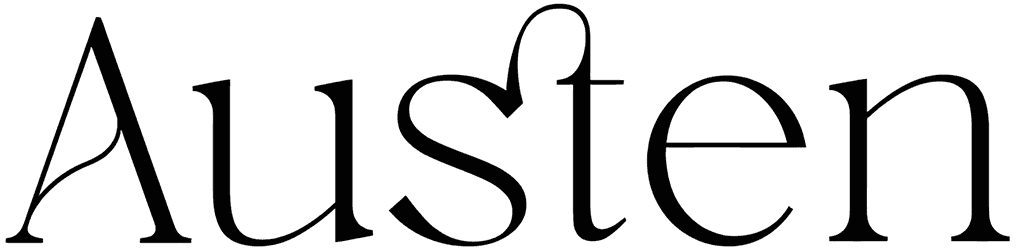
Austen Font
If you need the option to use it in all types of design, this is one of the best with its matchable style. Austen is a serif font with a classic vibe that consists of unique letters. With a full cover of characters, this item could be an apt choice for novel designs such as business cards, apparel, invitations, or the like.